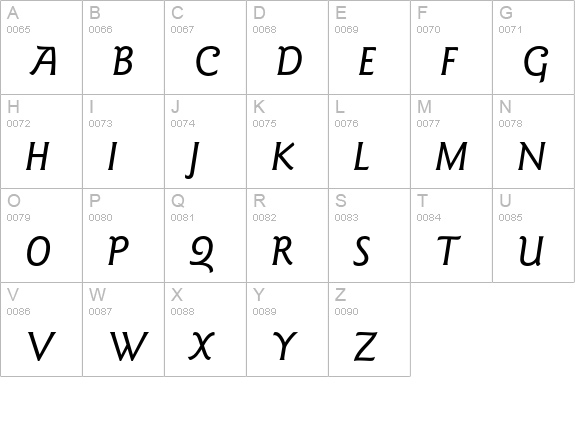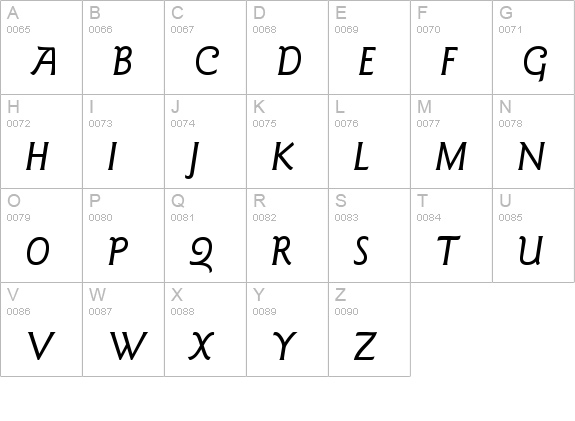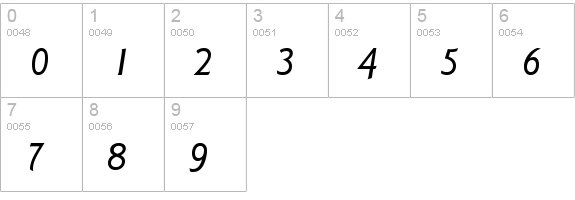
Goudy Sans* Medium Italic Font Details
Goudy Sans* Medium Italic is a balanced, medium-weight, italic variant in the Goudy typeface family \xE2\x80\x94 well suited to sub-headlines, navigation, and balanced editorial work.
Goudy Sans* Medium Italic is a sophisticated and versatile font that combines the classic elegance of Goudy with a modern twist. Its sleek and slanted design exudes a sense of style and professionalism, making it perfect for a wide range of design projects. The italicized version adds a touch of dynamism and flair to any text, making it stand out with a bold yet graceful presence. This font is not only visually appealing but also highly readable, making it suitable for both print and digital media. Whether used for headings, body text, or creative typography, Goudy Sans* Medium Italic makes a statement with its distinctive personality. The best part? Goudy Sans* Medium Italic is available for free download at FontsMarket.com. Now you can effortlessly elevate your designs with this premium font without any cost. Don't miss out on this opportunity to enhance your creative projects with the timeless beauty of Goudy Sans* Medium Italic.